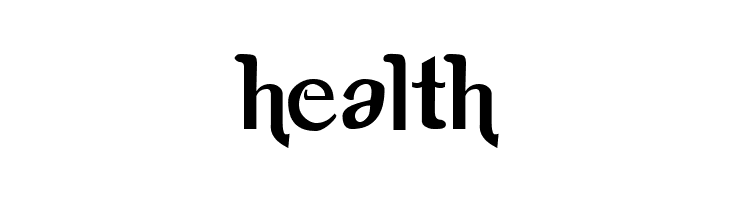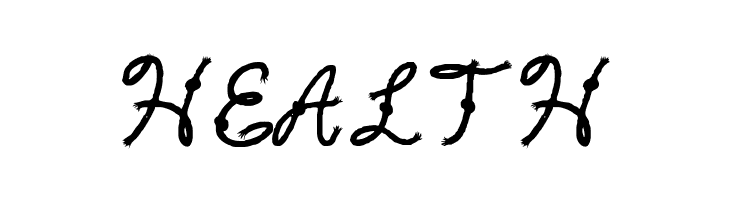
• Romeral
A bold, slab serif font with high contrast and a modern yet classic style.
• Romeralinline
A bold, shadowed font with a strong, dynamic presence.
• Romerati
• Rope5
A playful, rope-themed decorative font with a textured, dynamic appearance.
• Roundlings
A whimsical and abstract decorative font with bold, intricate shapes.
• RoundOpArt
A bold, geometric display font with an optical illusion effect.
• RoundslabSerif
A bold slab serif font with rounded edges and strong visual impact.
• rt screenloft8
• rt screenloft8 Bold
• Rudolphin
A classic serif font with elegant strokes and refined serifs.